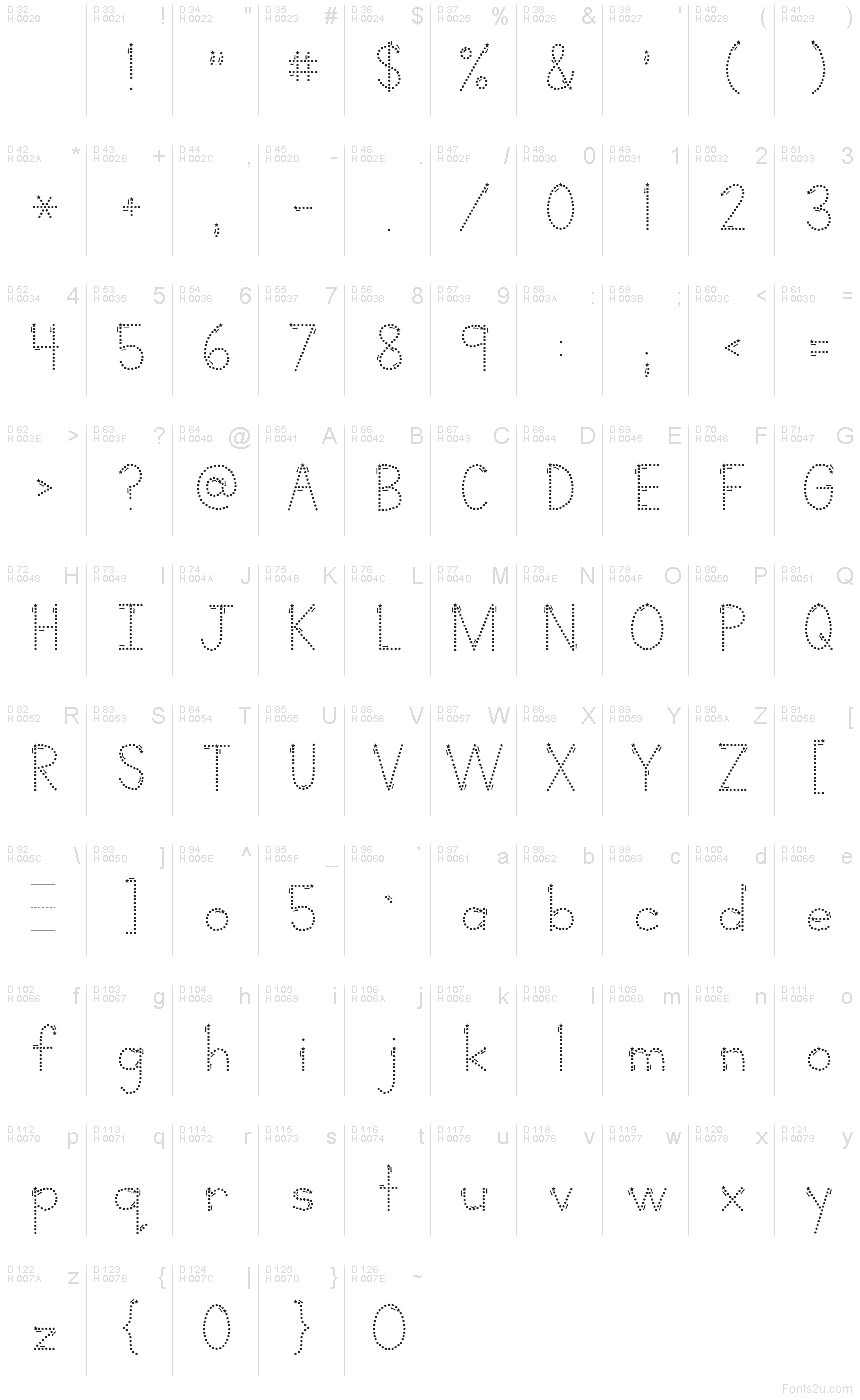
KG Teacher Created Star Arrows
KG Teacher Created Star Arrows font by Kimberly Geswein is a free educational handwriting practice script typeface. Part of the KG Teacher Created family, it uses dotted strokes with soft, rounded forms, plus tiny arrows and stars that clearly signal stroke order. The result is tidy, traceable letters that make directions obvious at a glance—no extra callouts or clip art needed.
This free font shines on handwriting worksheets, classroom posters, anchor charts, flashcards, bulletin boards, and homeschooling printables. Using KG Teacher Created Star Arrows keeps spacing consistent and cues intuitive, so kids stay focused on forming letters instead of guessing where to start. For easy reading, set it larger and pair with a clean sans-serif for headings or instructions.